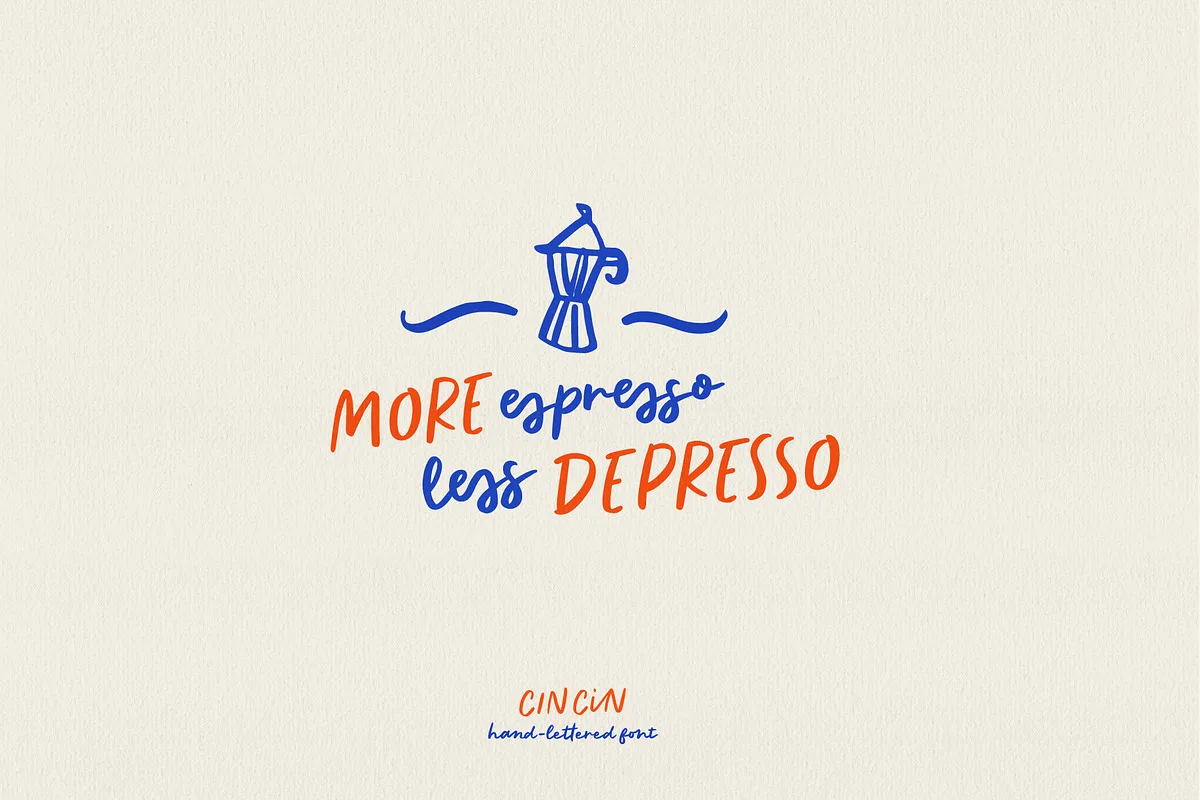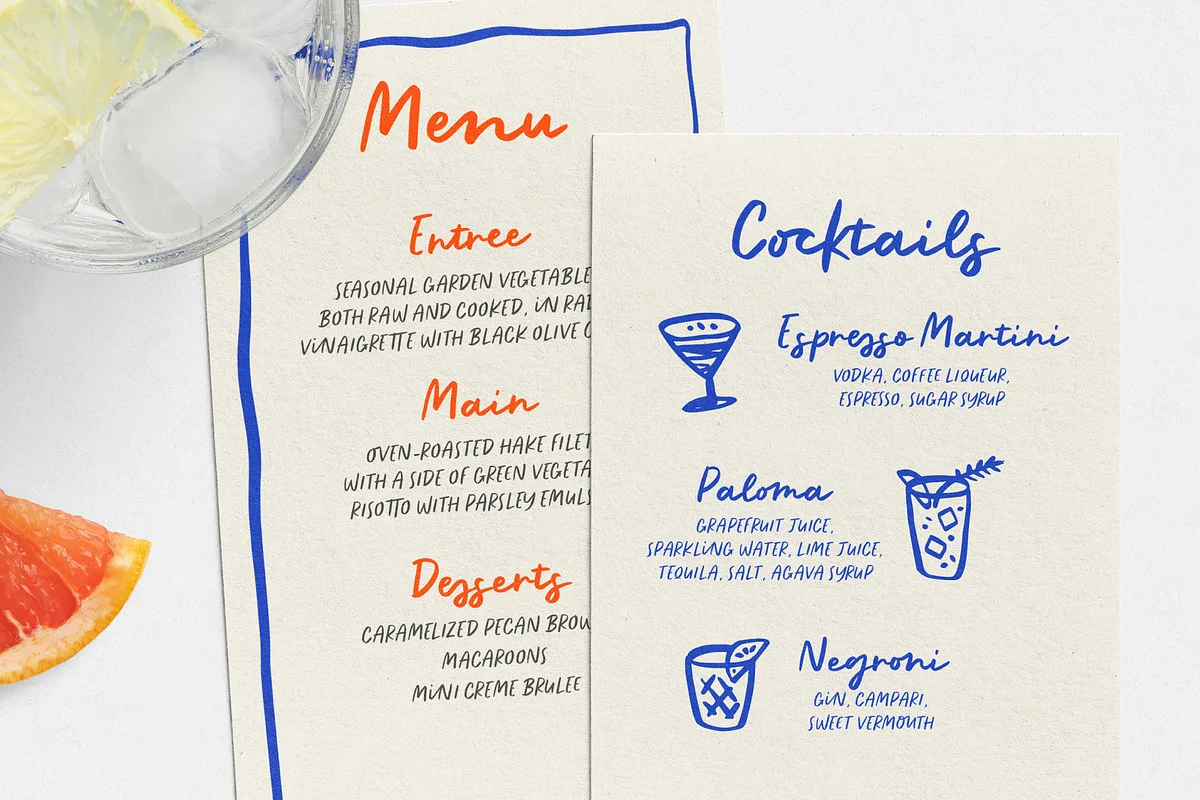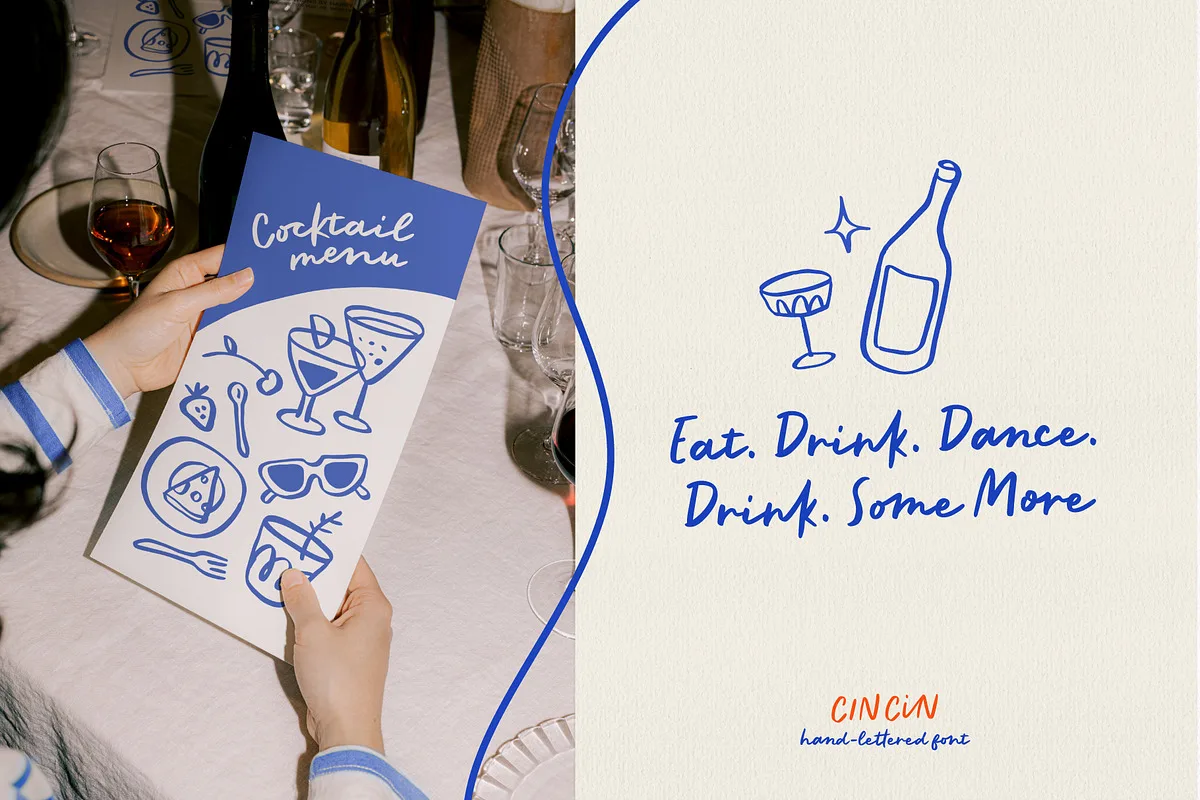
CINCIN will be perfect for books, greeting cards, logos, posters or anything that requires a fun and happiness look!
Cin Cin Handwritten Font Preview
The preview below shows the basic characters included in this typeface. It helps designers see how Cin Cin Font appears with uppercase letters, lowercase letters, and numbers.